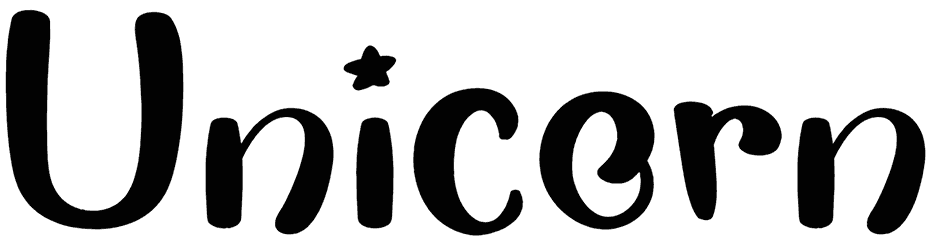
Unicorn Font
Unicorn is what can turn your writings into legendary masterpieces and make them enjoyable for all ages. This cartoon font has small, eye-catching decorations that bring elegance to your design world and create a pleasant feeling. This unicorn font has modern sensibilities that give a refreshing effect to the content and are very suitable for designing greeting cards, posters, stationery packaging, and clothing printing.
Unicorn is a cute, lovely and chic handwritten font. No matter the topic, this font will be an incredible asset to your fonts’ library, as it has the potential to elevate any creation.